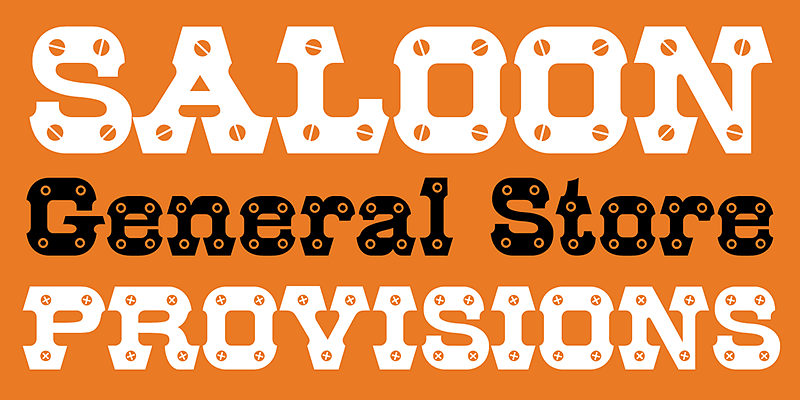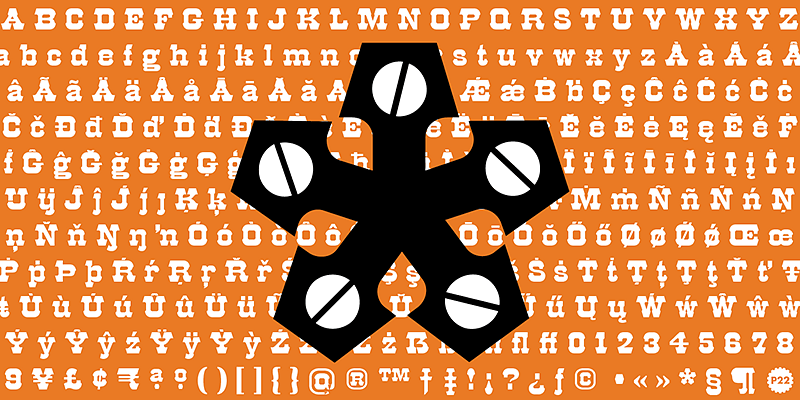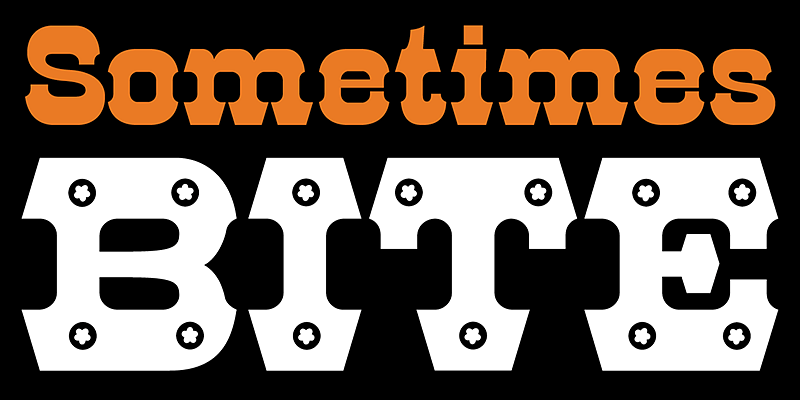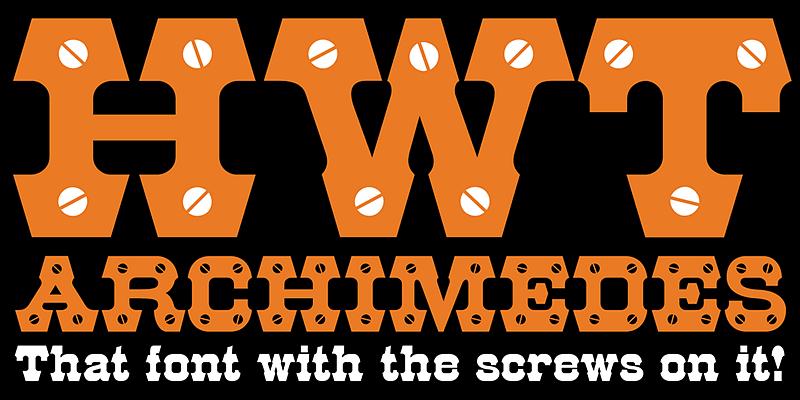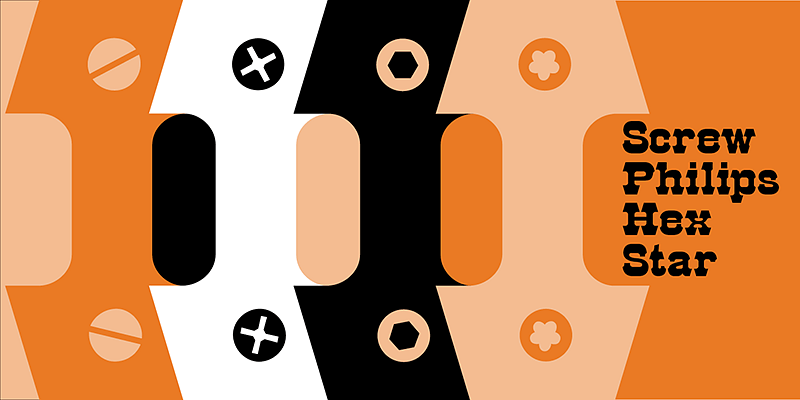
HWT Archimedes is a revival of a wood type design sometimes known as Mansard. The variation with screw heads in the design was first seen in 1879 by the Wm. H. Page Co.
The Hamilton Wood Type Collection (HWT), established in 2012, is a joint venture between P22 Type Foundry and the Hamilton Wood Type & Printing Museum. The classic designs in this collection are based on scarce printed specimens and actual wood type from the historic artifacts at the Hamilton Museum. Some of this fonts are the product of the Hamilton Wood Type Legacy Project—a collaboration between the museum and designers to make contemporary type designs for Hamilton’s use in the production of new wood types. The inclusion of HWT to the P22 roster is a perfect addition to the legacy of keeping classic designs relevant and usable in contemporary design.
The Hamilton Wood Type & Printing Museum, in Two Rivers, Wisconsin, is the only museum dedicated to the preservation, study, production, and printing of wood type. Hamilton has one of the premier wood type collections in the world and is an unparalleled source of research material for printing historians and aesthetes alike.